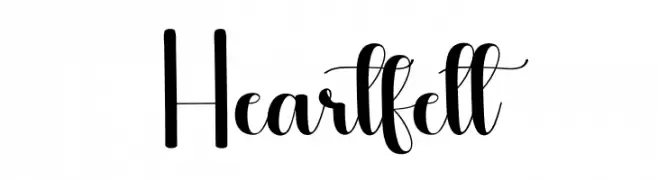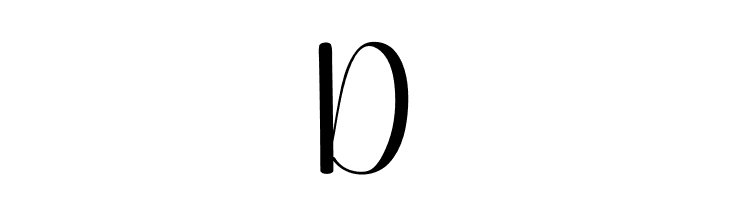
• Heartfelt
( Fonts by Scratchones )
Modern, whimsical script with playful contrast and handwritten style.
• Deeptalk
( Fonts by Graphix Line Studio )
Casual handwritten font with rounded, playful strokes.